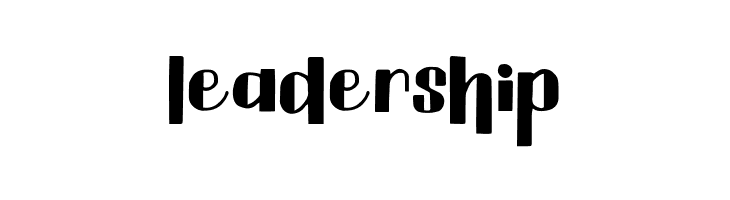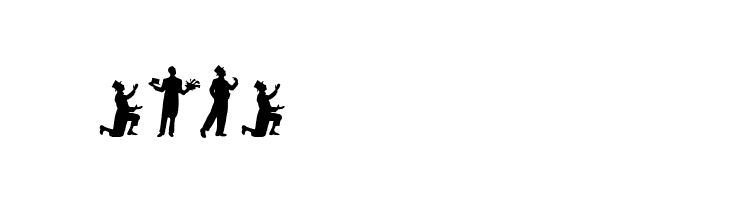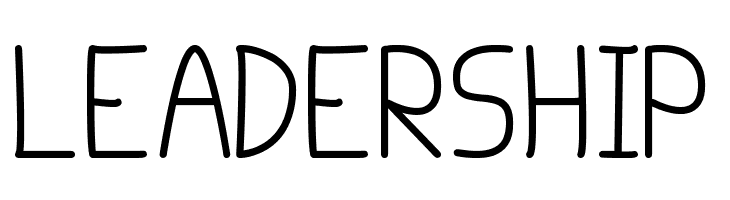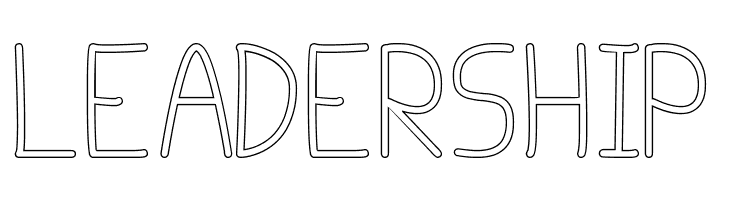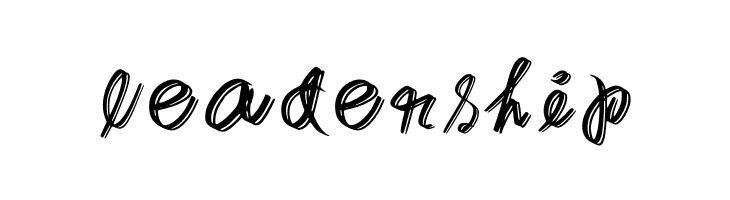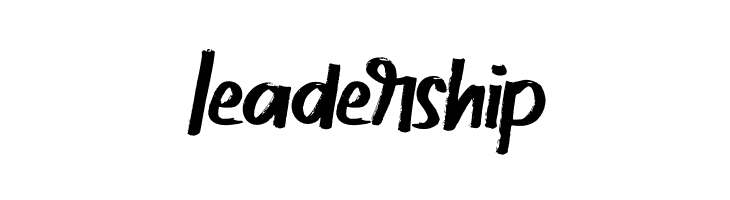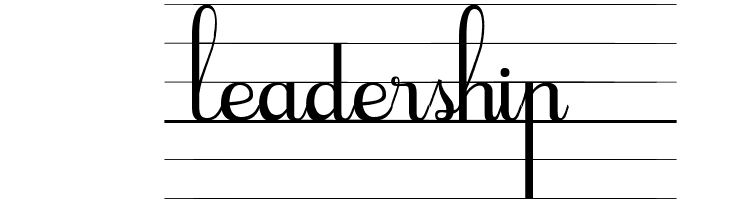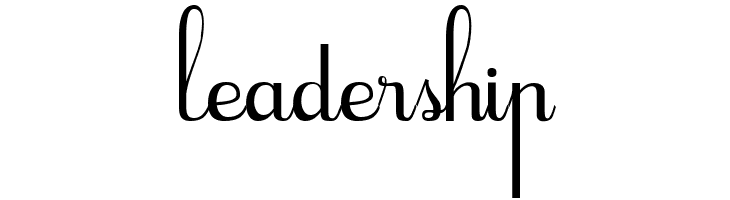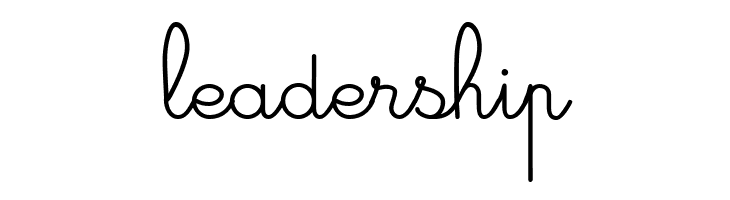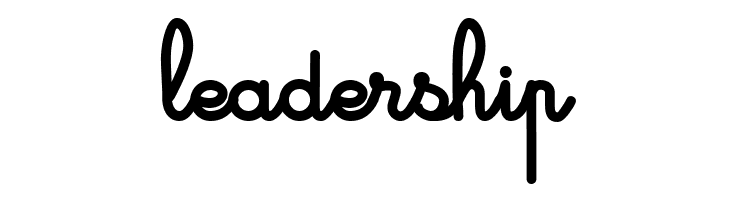
A hand-drawn, artistic font with elongated, narrow characters and a uniform stroke width.
A modern, high-contrast font with elegant and dynamic strokes.
A bold, playful font with exaggerated strokes and a whimsical style.
A lively, expressive handwritten font with dynamic strokes and playful loops.
A bold, expressive handwritten font with a playful, brush-like style.
A bold, modern font with clean lines and a slightly condensed style.
A bold, jagged font with a horror-inspired aesthetic, perfect for spooky themes.
A bold, spiky gothic display font with dramatic, pointed forms.
A bold, gothic display font with devilish horns and tails.
A bold, dripping decorative font with gothic and horror vibes.
A bold, bandaged decorative font with a spooky, Halloween vibe.
A bold, jagged, root-inspired decorative font with a gothic, eerie feel.
A bold, gothic display font with skull embellishments.
A bold, gothic display font with spiderweb embellishments and sharp, dramatic forms.
A quirky, gothic display font with twisted, whimsical serifs.
A bold, jagged, woodcut-style decorative display font with gothic influences.
A horror-themed display font with clawed, zombie-like accents.
A bold, rugged font with jagged edges and a distressed, grungy style.
A bold, playful set of expressive and dynamic symbols with a comic book style.
A bold, expressive script font with a brush-like texture and dynamic strokes.
A playful, handwritten font with a casual and friendly appearance.
A playful, hand-drawn font with rounded edges and a whimsical style.
A playful, hollow, hand-drawn style font with rounded, outlined characters.
An elegant script font with flowing, connected strokes and a sophisticated appearance.
A playful cursive font with interconnected, flowing digits.